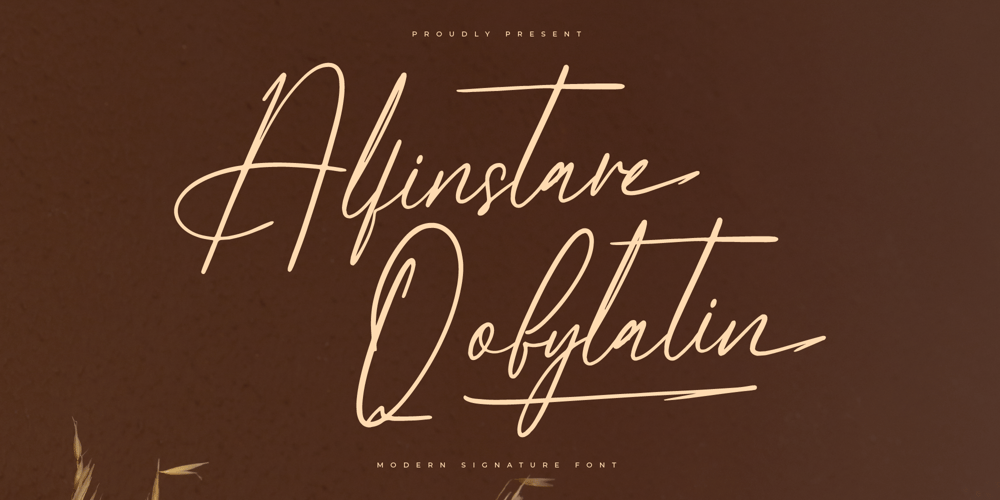
Alfinstare Qobylatin Font Family was designed by Heru Utama Putra and published by Letterena Studios. Alfinstare Qobylatin contains 2 styles and family package options. Alfinstare Qobylatin is a dazzling script font that exudes elegance and charm. With its fluid strokes and intricate details, it captivates the eye and adds a touch of sophistication to any design project. Perfect for invitations, branding, and headlines, Alfinstare Qobylatin brings a sense of luxury and style to your creations.